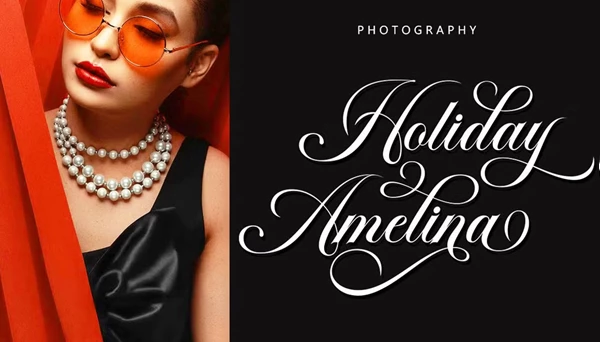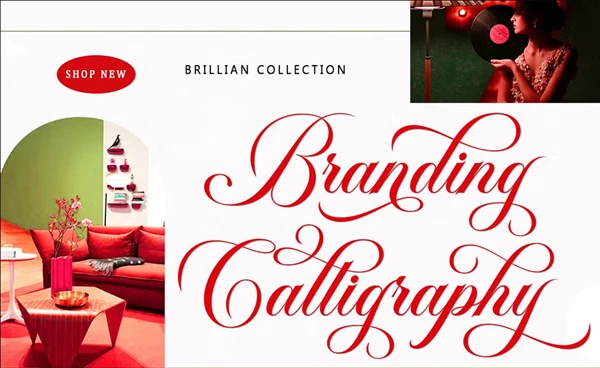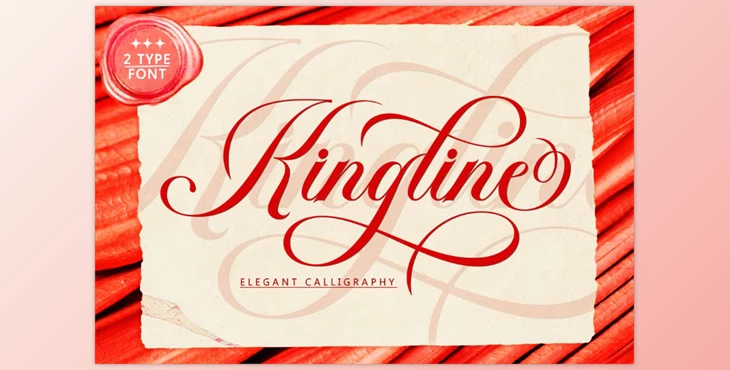
Kingline Font:
The Kingline Font is a modern take on an exquisite classic typeface. It was crafted precisely, making it easy to read and look great. The font is also formal because of its luxurious connections and feminine attributes.
It is perfect for invitations, labels, restaurant menus, logos, fashion and beauty branded stationery, novels, best-seller magazines, books, greeting and wedding cards, packaging, and other advertising materials.
- Two distinct font types for a wide range of design options.
- Uppercase, lowercase, and alternates of each character for a complete design standards kit.
- Every number, in addition to every punctuation mark and symbol, for full expressive needs.
- Different styles of font to fulfill everyone’s needs.
"Kingline Font" Samples: